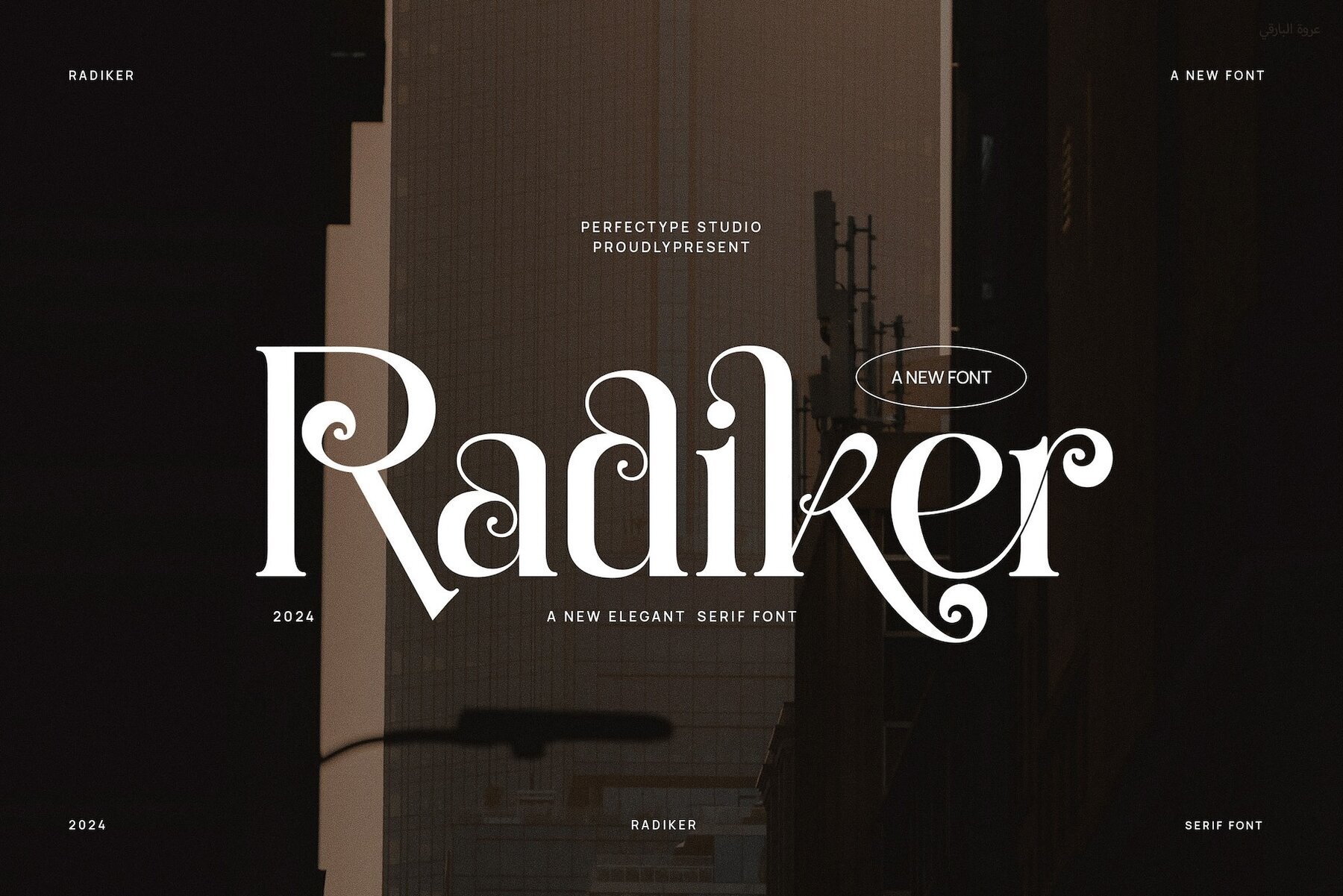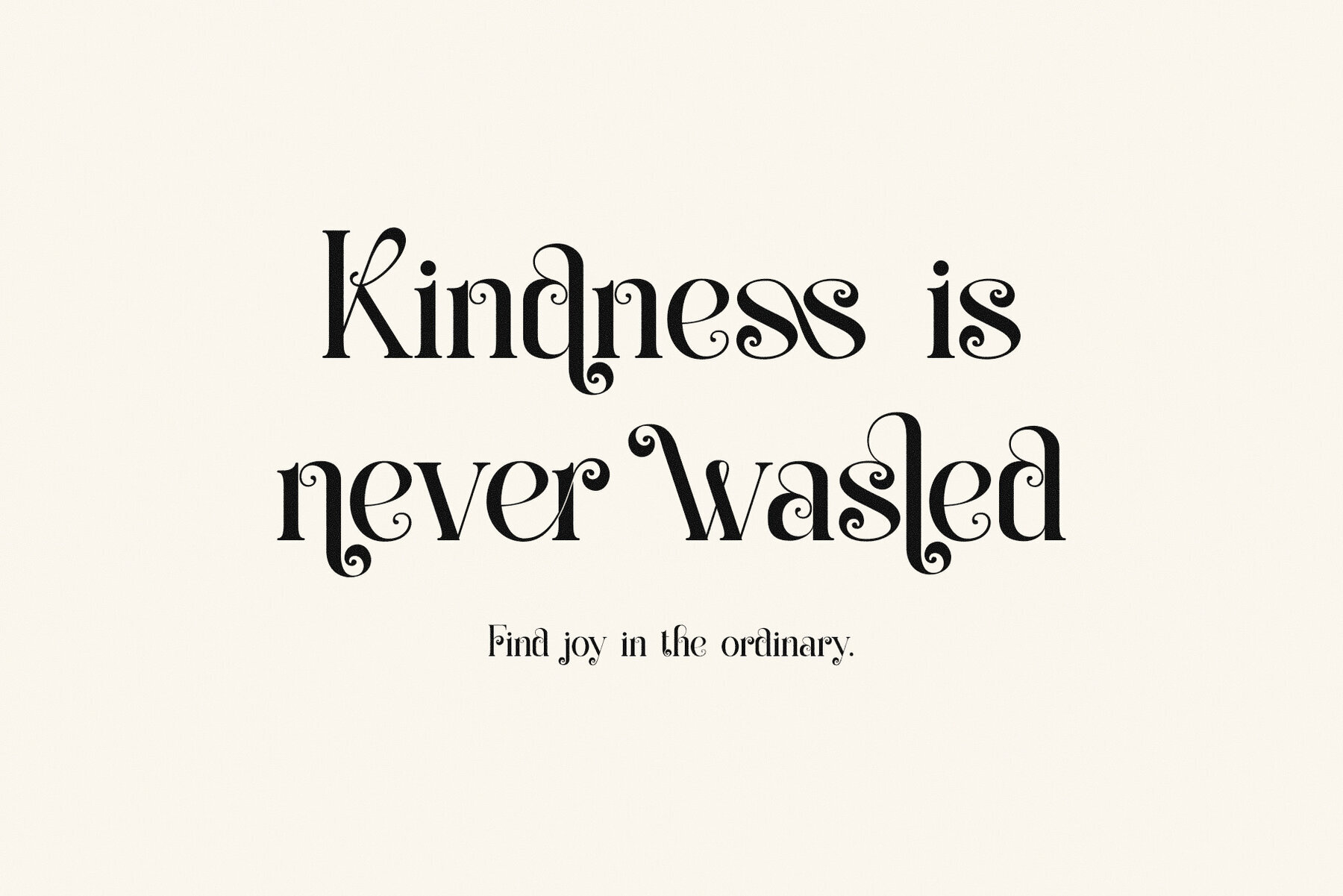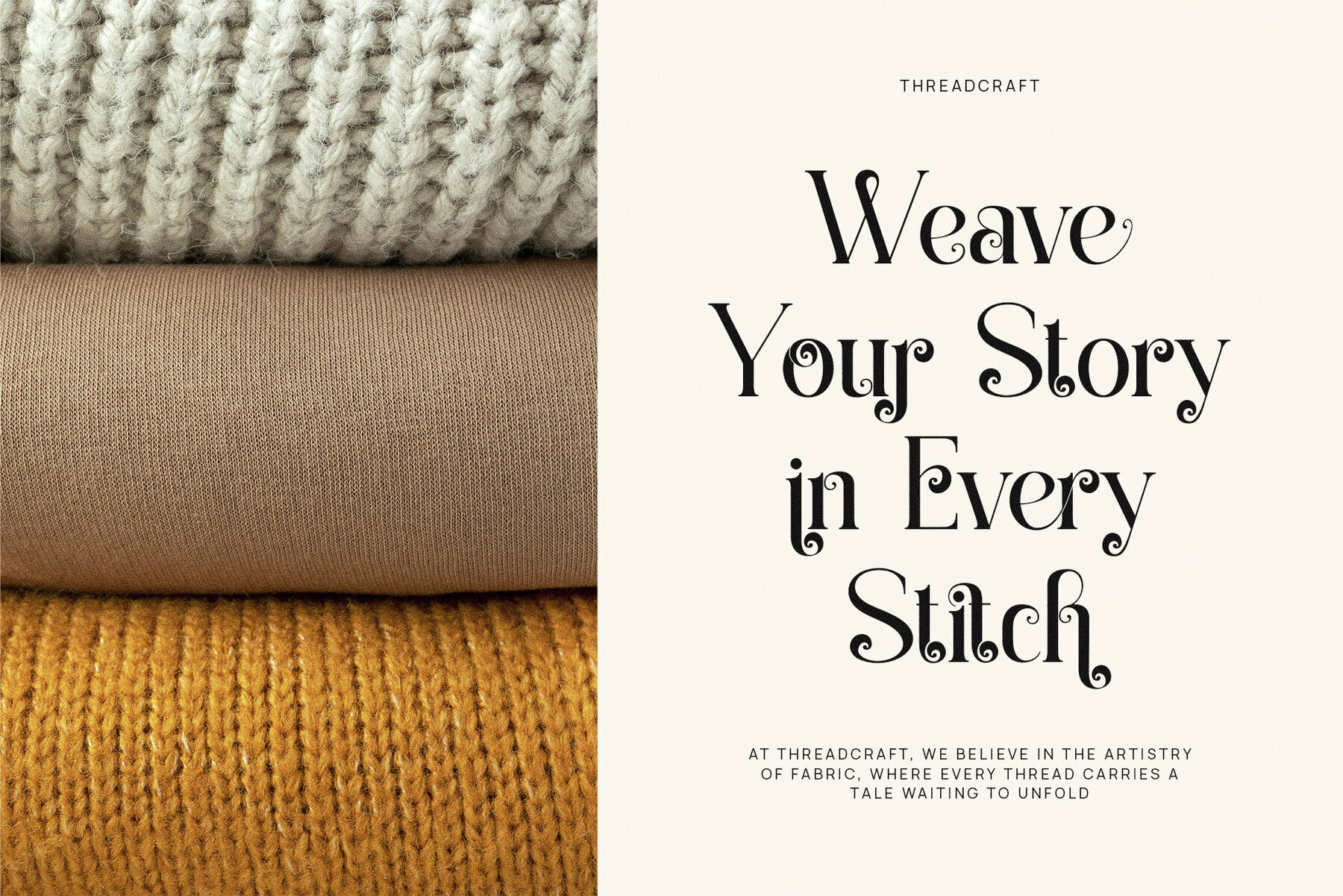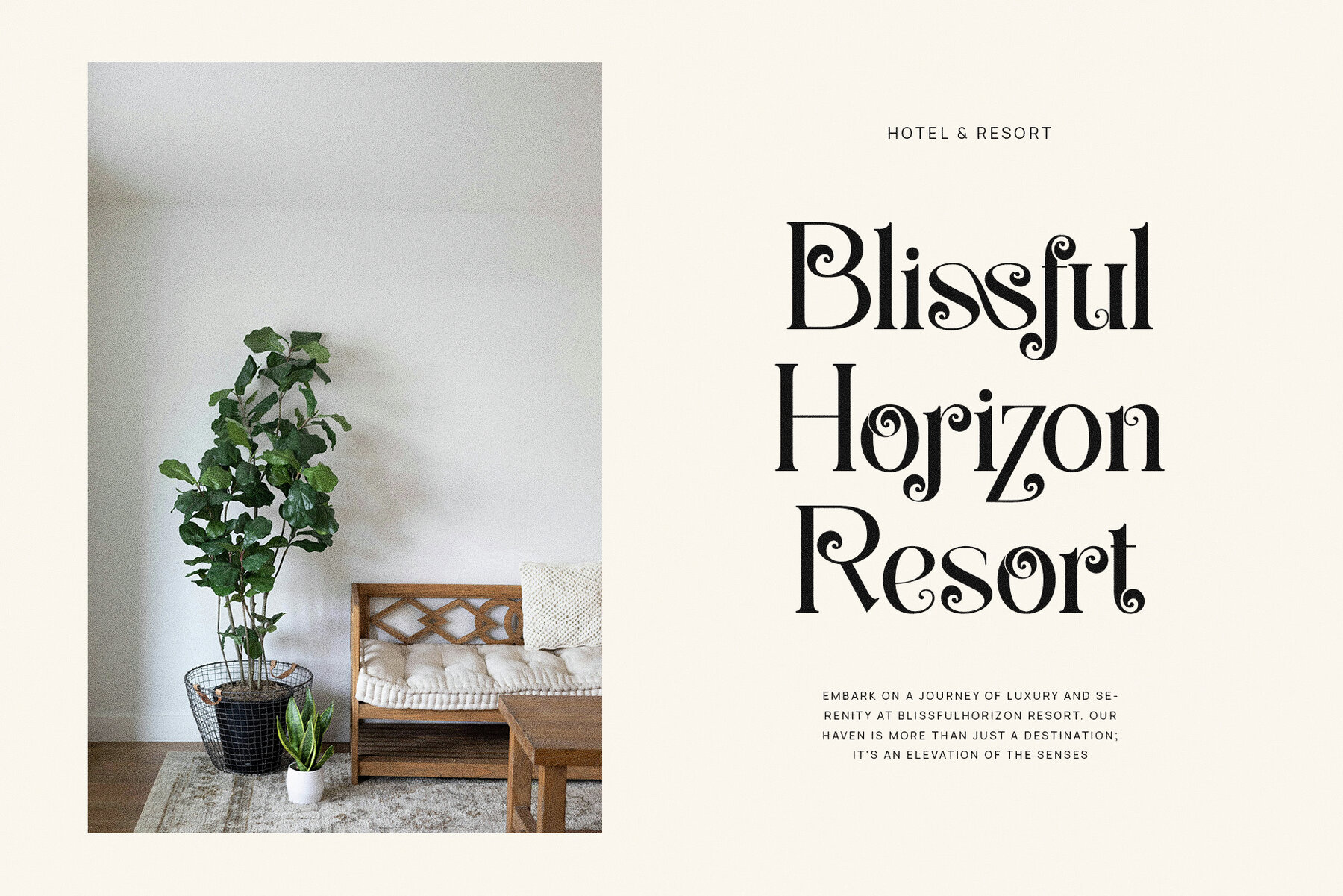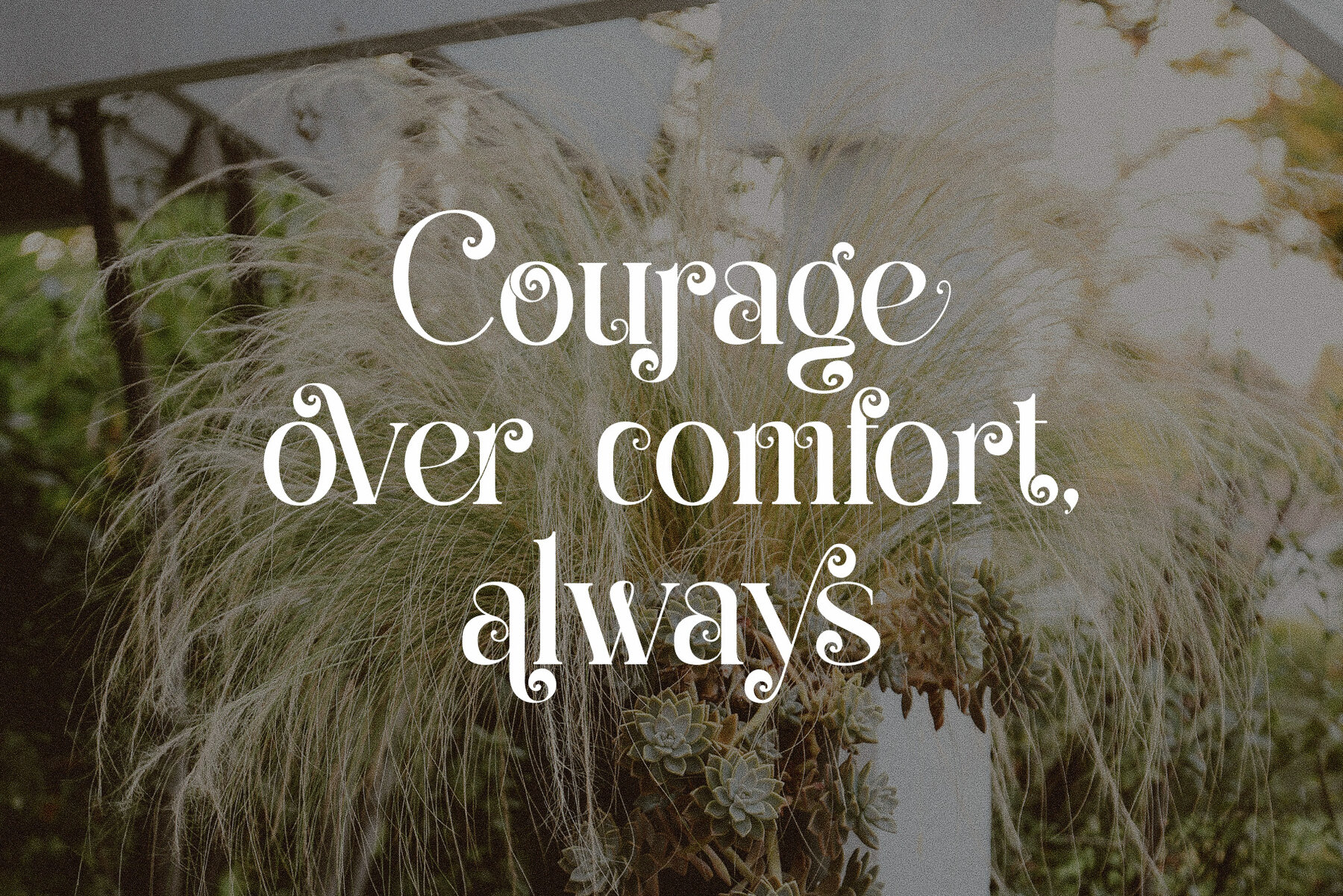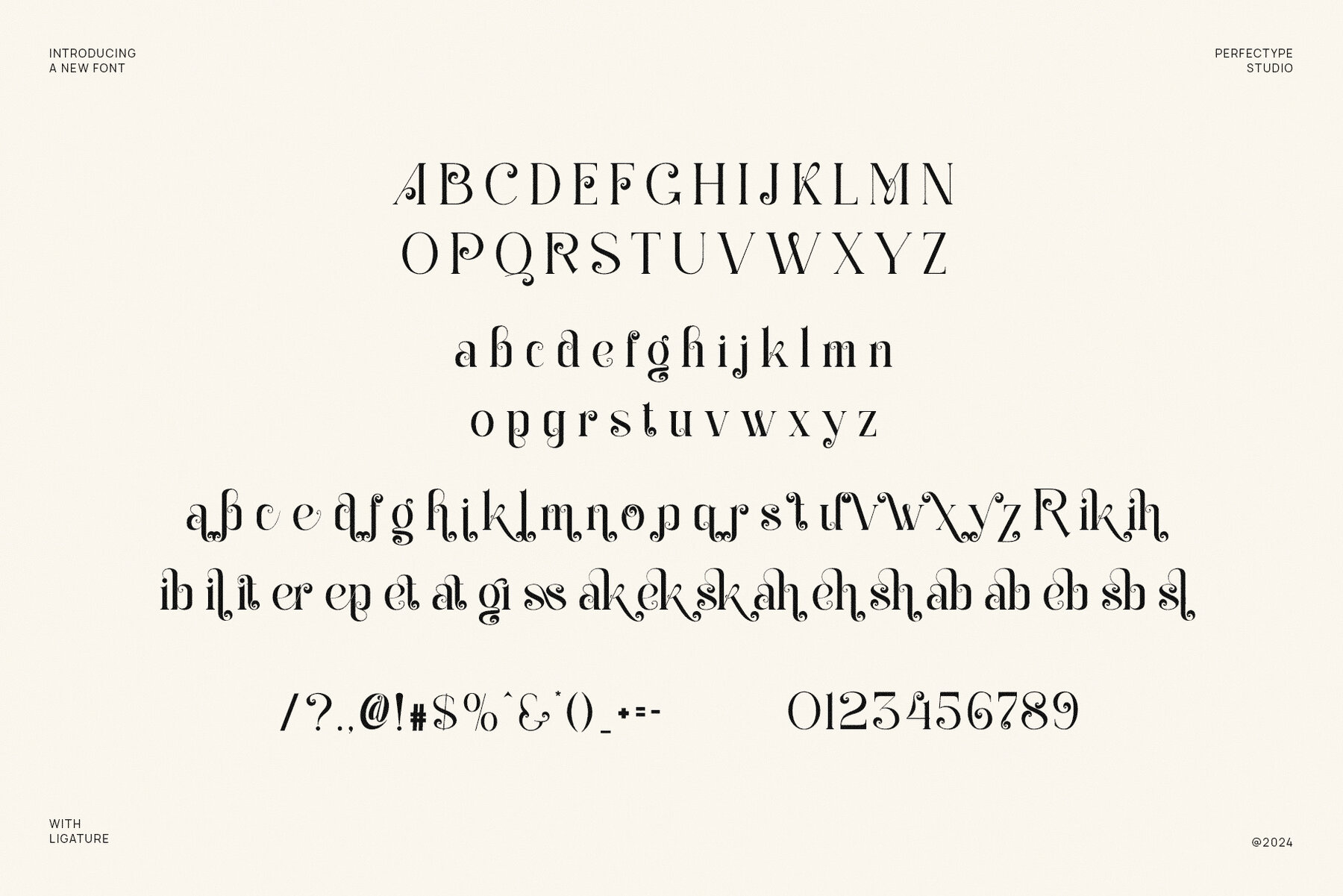
Radiker Font
Radiker
Radiker Elegant Serif Font is a sophisticated typeface that combines contemporary design with timeless appeal. Its striking serifs and sleek curves offer a unique visual experience, suitable for high-end design projects. Radiker's beautifully crafted ligatures and alternates offer flexibility, allowing designers to create personalized typography that stands out with precision and elegance.
Ideal for luxury branding, Radiker adds professionalism and class to logos, websites, and product designs. Its elegant structure ensures readability in both large headings and smaller text, making it versatile for various applications. Whether designing a chic logo, a stylish magazine layout, or premium packaging, Radiker provides a polished and sophisticated finish.
Particularly suited for industries emphasizing luxury, style, and quality, including fashion, food, boutique branding, and lifestyle, Radiker maintains versatility across digital and print media. It enhances the visual impact of projects from advertisements to editorial content while preserving a timeless elegance. With its graceful letterforms and sophisticated features, Radiker is an essential tool for designers aiming to create high-quality, memorable branding.